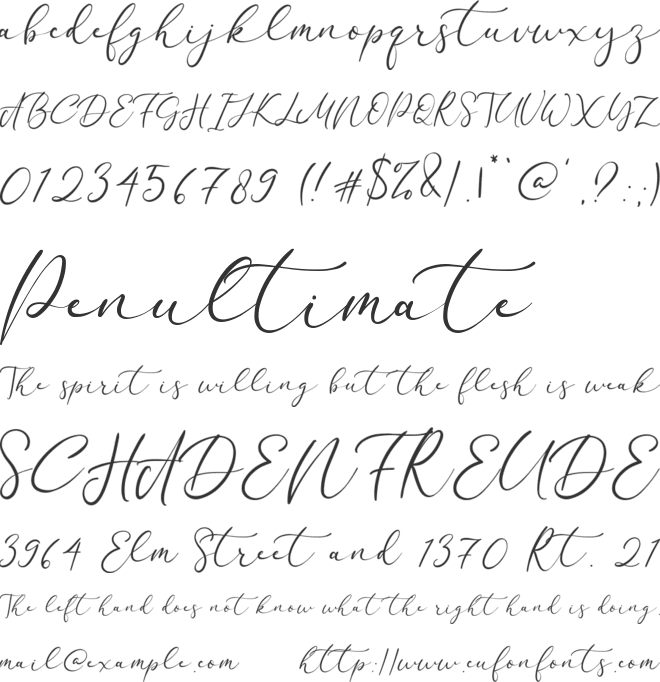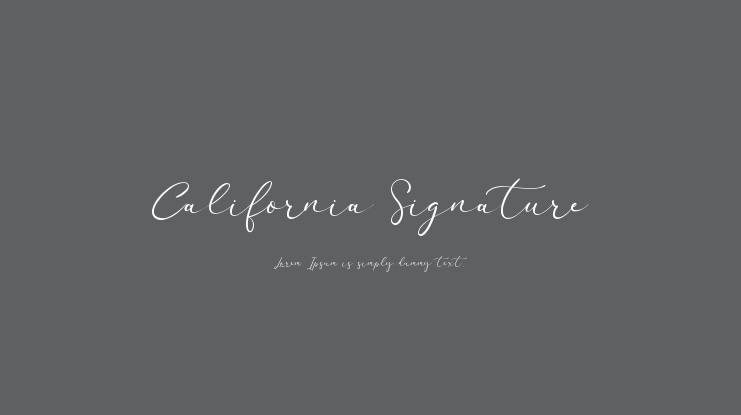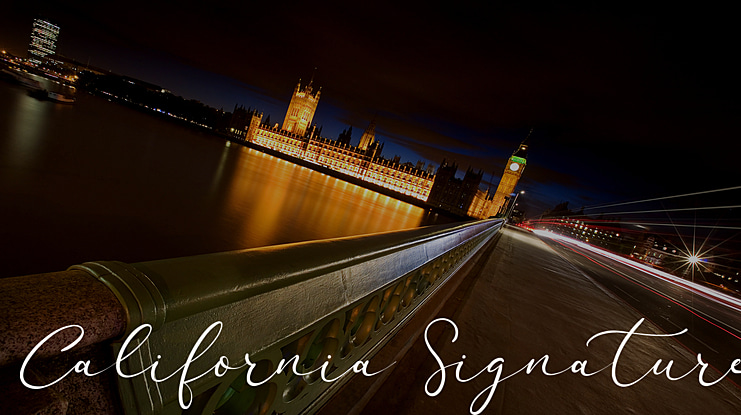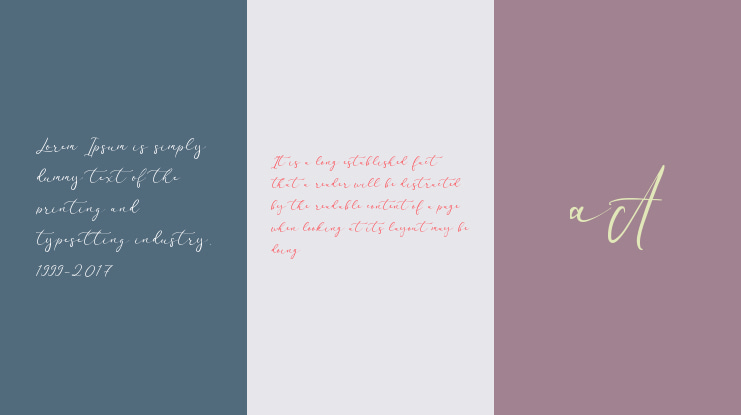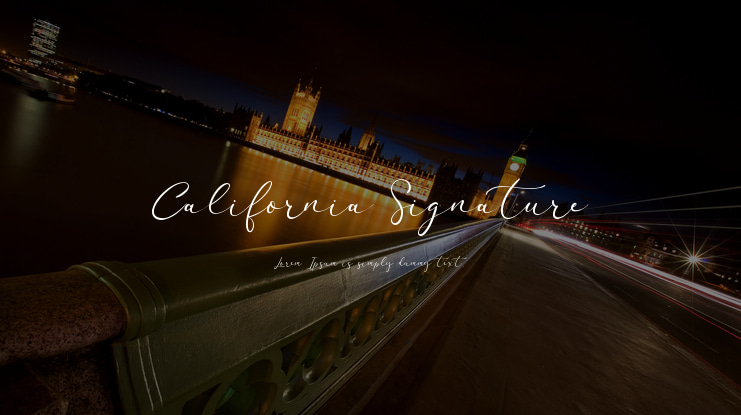
California Signature Font Family
Staircase Studio
California Signature Font Duo, Sans Serif & Script Typefont. A collection of letters and numbers suitable your projects also great for Logotype, Branding Design, Logo Design, Digital Lettering Arts, T-Shirt/Apparel, Poster, Magazine, Signs, Advertising Design, and any design needs.